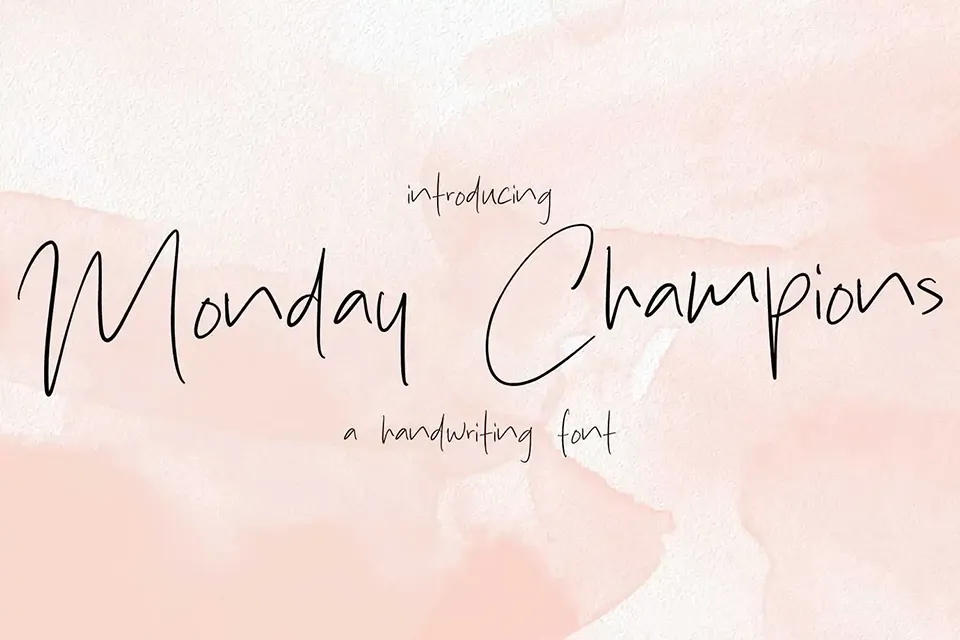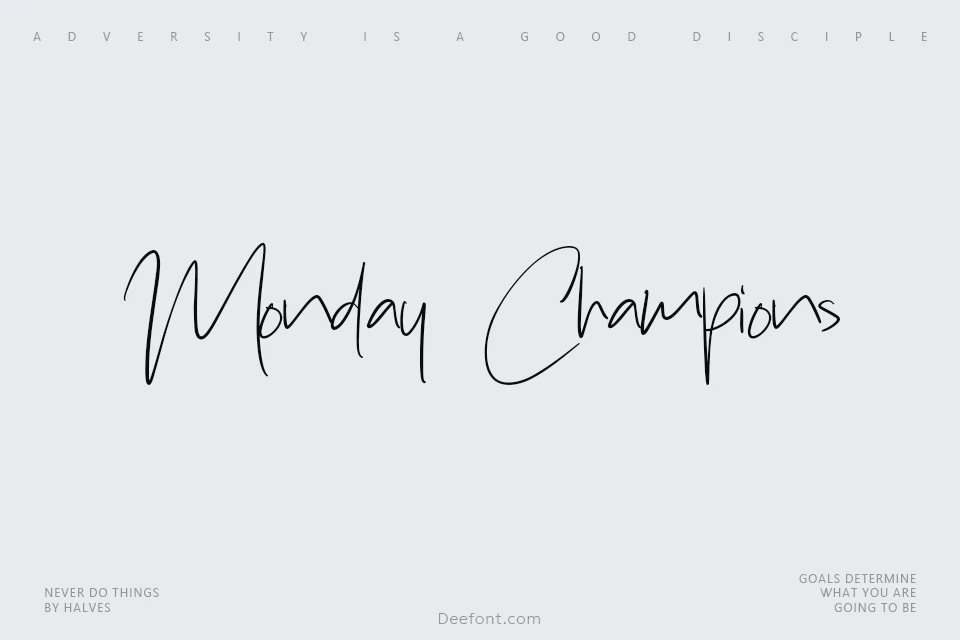
Monday Champions Font
Monday Champions Font is a distinctive handwritten script typeface that captures a carefree and personal style. Created by MJType and released in July 2024, this font exudes warmth and personality, making it ideal for creative projects like wedding invitations, birthday cards, and special occasion designs. While available for free personal use, it requires a commercial license for business applications. The font features a complete set of 95 glyphs and maintains a natural, flowing aesthetic that adds a touch of authenticity to any design. Its versatile character set allows for expressive typography while maintaining readability and charm.